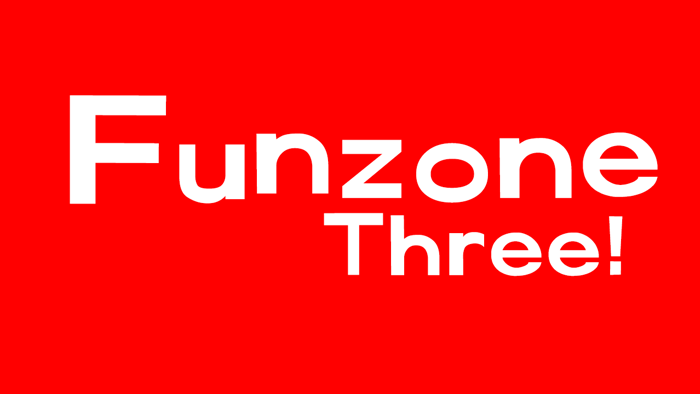
FunZone Three Font
My go at 100% and perfectly remaking the Teapigs logo font, because the font for Teapigs is custom, but designed by Teapigs' team designer.
This font is way better than my old one.